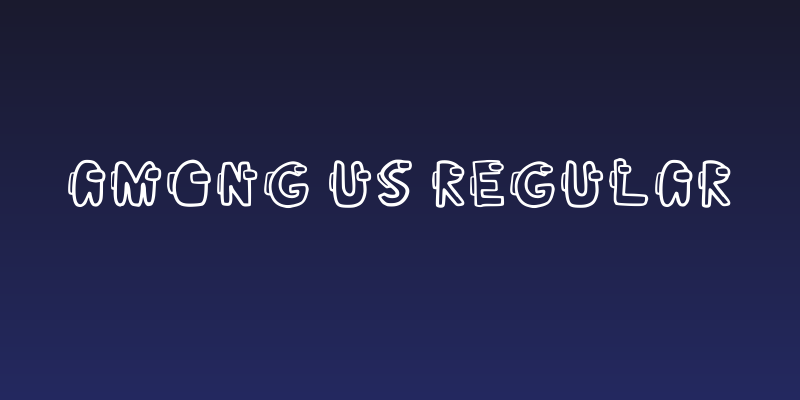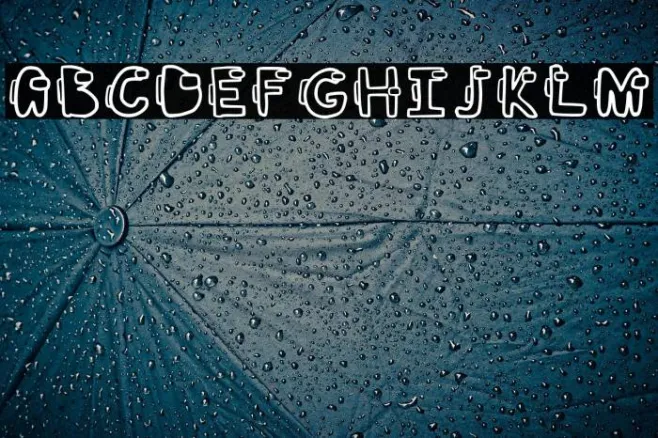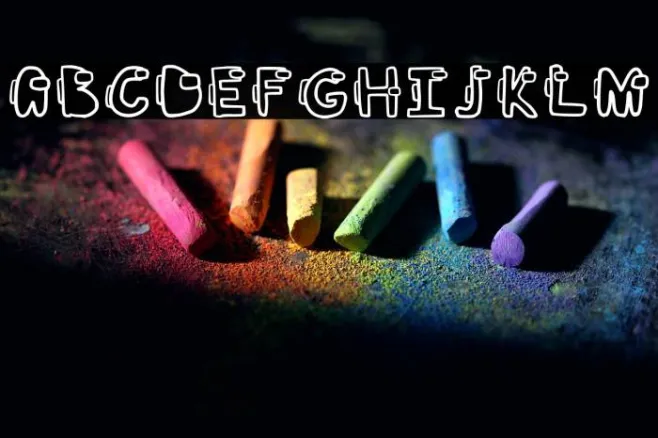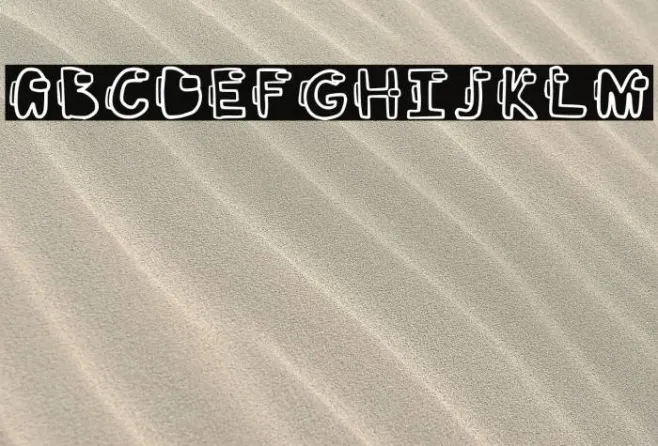
Among Us Regular Font
Among Us Regular Description
This playful and quirky font features bold, rounded characters with a unique, hand-drawn style. Each letter is outlined, giving it a cartoon-like appearance that is both fun and engaging. The font maintains a consistent thickness throughout, with a slightly irregular shape that adds to its charm. It is highly legible and stands out due to its distinctive design, making it ideal for creative projects that require a touch of whimsy. The characters are evenly spaced, ensuring readability while maintaining the font's playful nature.
| Overall Style | Playful, Quirky, Cartoon-like |
| Proposed Projects | Perfect for children's books, game design, playful branding, and creative posters. |